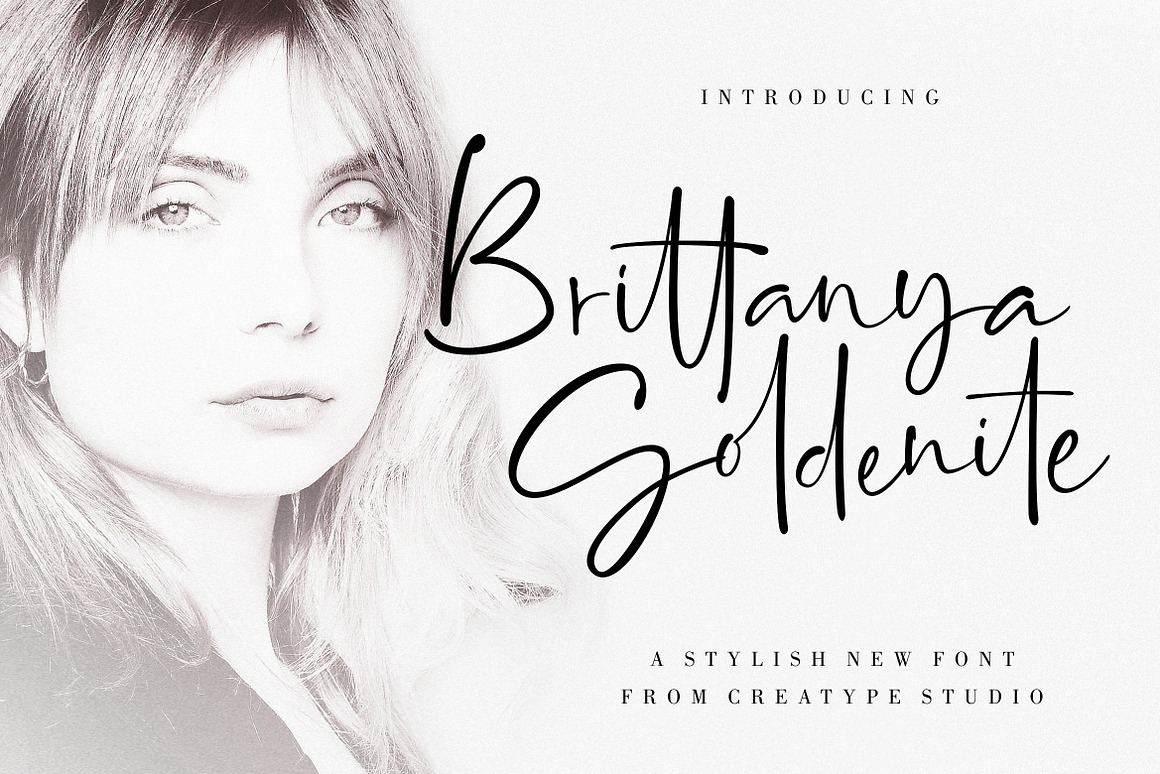
Brittanya Goldenite Business Font
Brittanya Goldenite Business Font is perfect for luxury business branding, premium corporate presentations, high-end financial services marketing, executive communications, upscale consulting firm materials, prestigious award ceremonies, exclusive membership organizations, sophisticated business cards, and elite professional services branding.
What makes Brittanya Goldenite Business Font exciting is its sophisticated fusion of golden elegance with professional authority that creates an unmistakable impression of premium business excellence and executive prestige. The font features refined letterforms with subtle luxurious details that convey success, prosperity, and high-level business acumen. Its carefully balanced proportions and golden aesthetic inspiration make it perfect for organizations that want to communicate wealth, achievement, and top-tier professional services while maintaining the credibility and trustworthiness essential for high-stakes business relationships and executive-level communications.
Brittanya Goldenite Business Font family includes comprehensive professional weights such as Light, Regular, Medium, Bold, and Heavy variations, often featuring elegant italics and executive-level stylistic alternates. The family may include premium business symbols, luxury ornamental elements, and sophisticated decorative features that enhance the font's golden business aesthetic, providing designers with complete options for creating distinguished corporate identities and prestigious business communications.